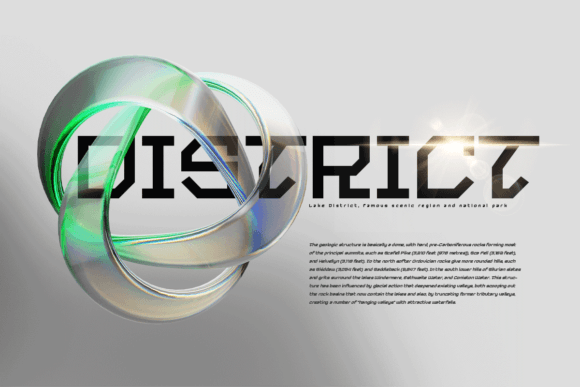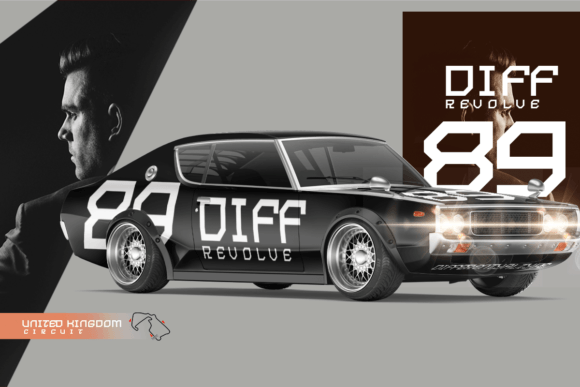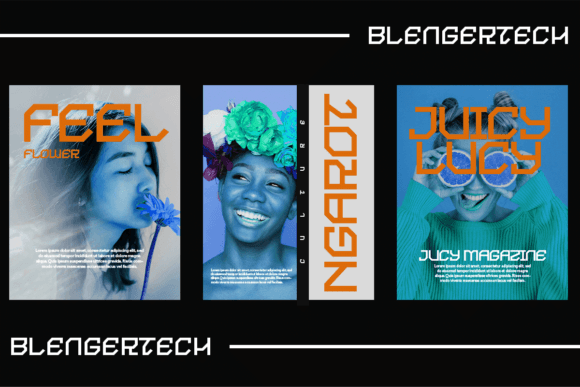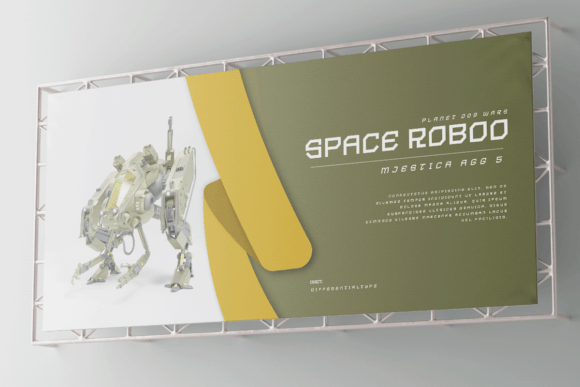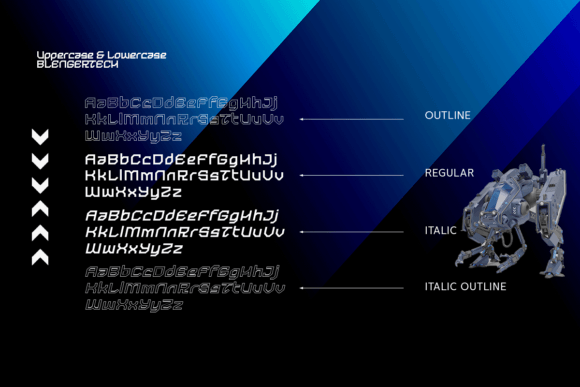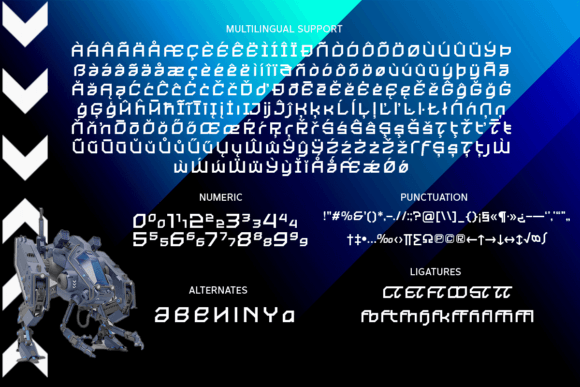
Introducing Blenger Tech: The Futuristic Display Font That’s Taking Design by Storm
I’ll never forget the design project that led me to discover Blenger Tech. I was working on a futuristic-themed video game, and my client requested a font that would transport their game’s aesthetic into the next level. I scoured the internet, tried countless fonts, but nothing seemed quite right. That was until I stumbled upon Blenger Tech. Its unique geometric design and futuristic vibe instantly clicked with me, and I knew I had found the perfect fit. In this article, I’ll share my experience with Blenger Tech, its features, and how to make the most of this incredible font.
A Personal Review: What I Love About Blenger Tech
Here’s what makes Blenger Tech stand out:
- ✨ Unique Geometric Design: Blenger Tech’s unusual geometric style makes it a showstopper. It’s perfect for creating eye-catching headlines, posters, or brand identities that demand attention.
- ✅ Versatility: This font is incredibly versatile. Use it for futuristic styles, modern decor, or sophisticated designs to add a fresh touch.
- 🔥 High-Impact Applications: Blenger Tech is ideal for movie posters, game applications, and any project that requires a bold, edgy look.
While Blenger Tech is an amazing font, there are a few things to keep in mind:
- ⚠️ Legibility at Small Sizes: Like many display fonts, Blenger Tech can be challenging to read at small sizes. Use it for headlines or titles, and consider a complementary font for body text.
- 🤔 Glyphs and Alternates: While Blenger Tech has an impressive range of glyphs and stylistic alternates, some users may find the character set overwhelming. Take some time to explore the font’s OpenType features to get the most out of it.
Blenger Tech was designed by a renowned type designer who aimed to create a font that would capture the essence of futuristic technology. Inspired by sci-fi movies, video games, and cutting-edge tech innovations, the designer crafted a unique geometric style that’s both bold and elegant. The result is a font that’s perfect for designers, crafters, and creative hobbyists looking to add a touch of futurism to their projects.
| Font Name | Blenger Tech Font |
| Author | Differentialtype |
| What is Blenger Tech? | Blenger Tech is a distinctive display font with a futuristic, geometric design. It’s perfect for creating eye-catching headlines, posters, or brand identities. |
| Is Blenger Tech suitable for body text? | While Blenger Tech is a beautiful font, it’s primarily designed for display use. Consider using a complementary font for body text to ensure optimal readability. |